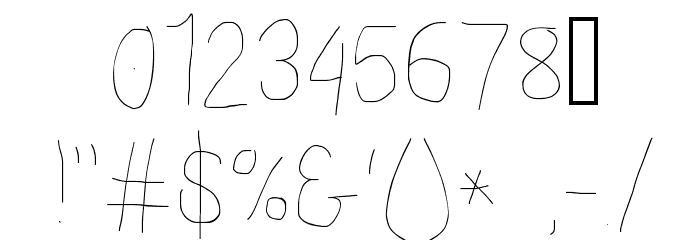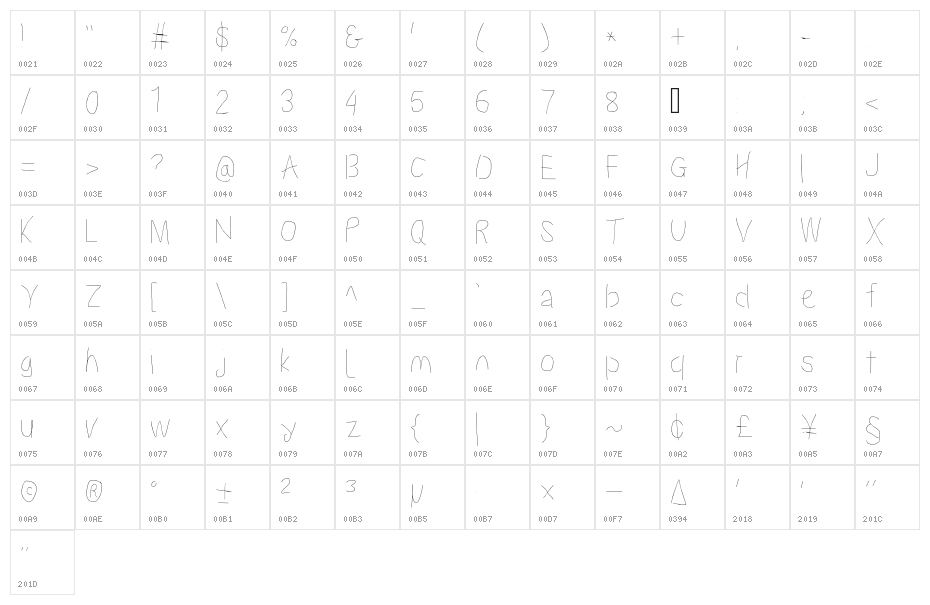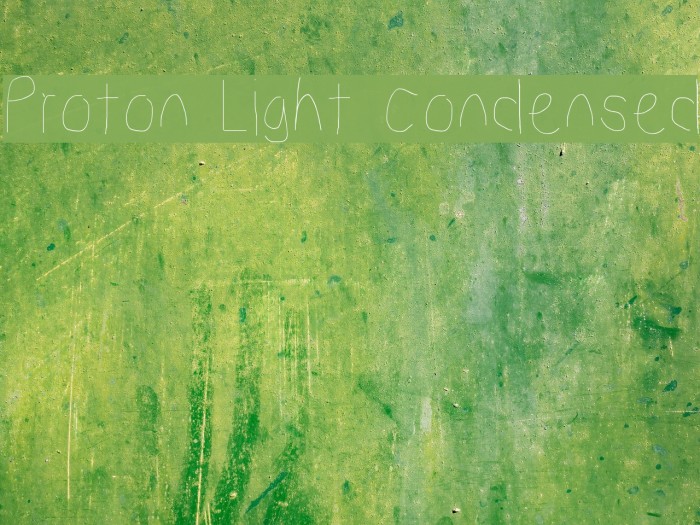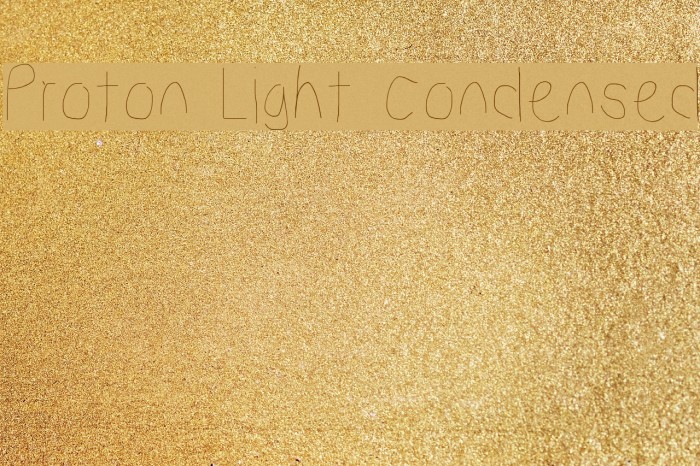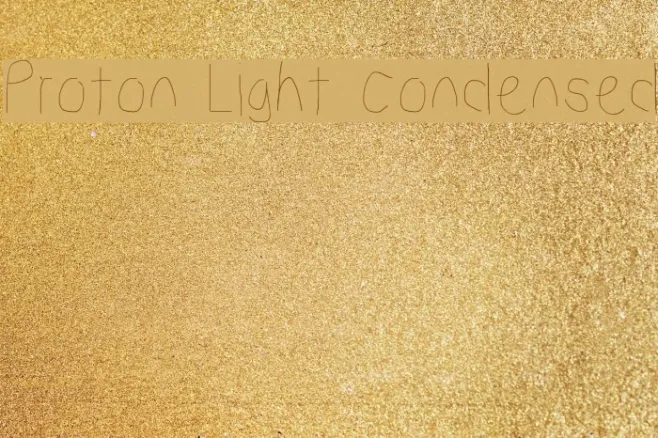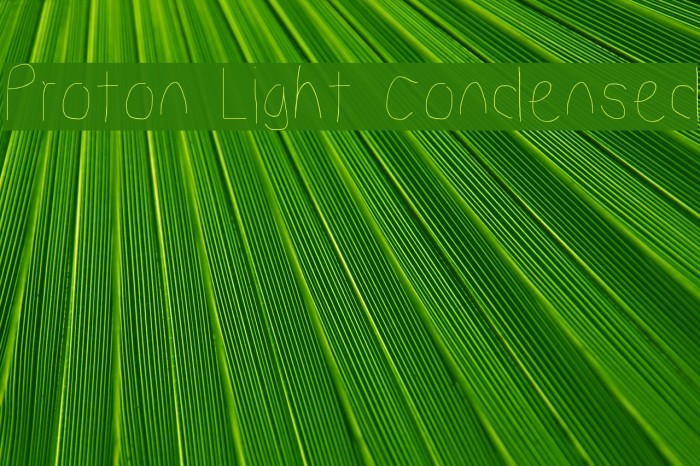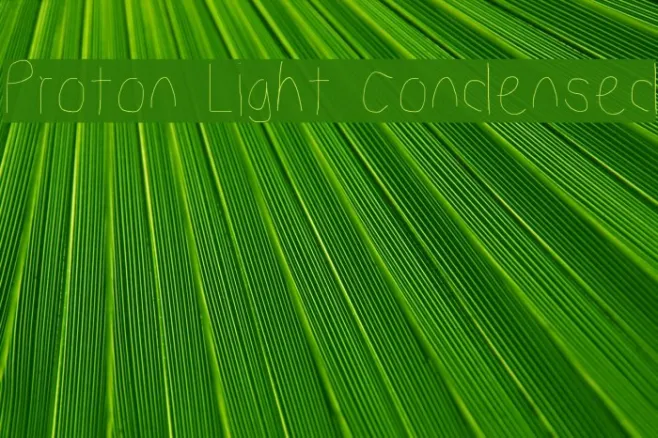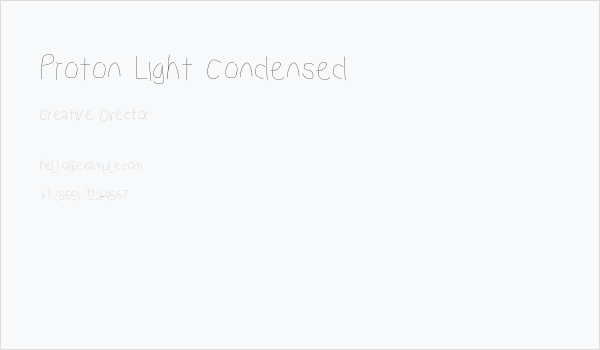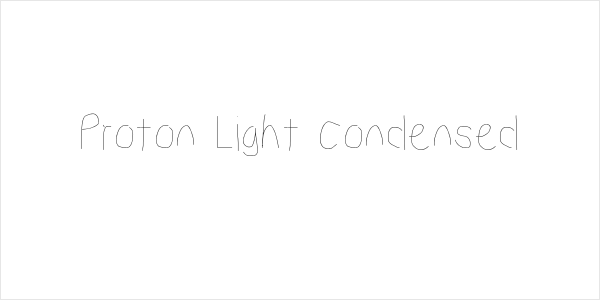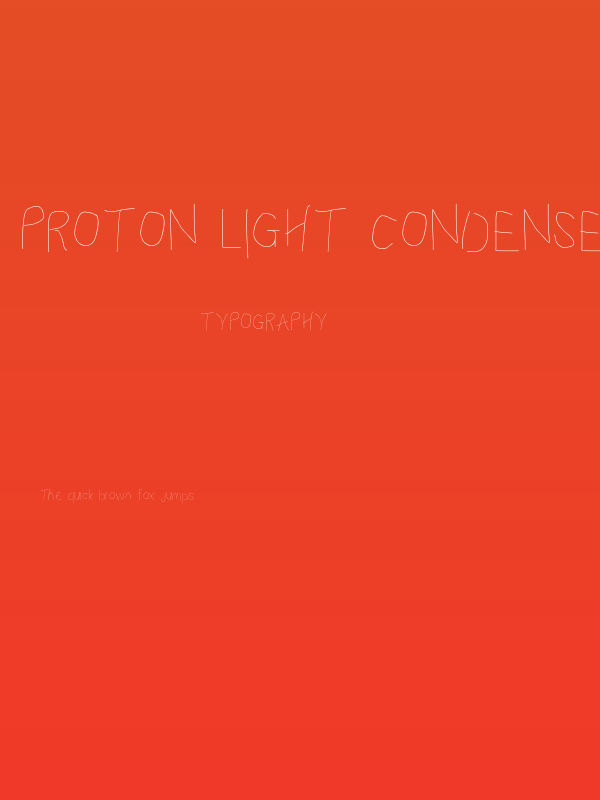
Proton Light Condensed Font
Proton Light Condensed Description
This font features a light, airy design with a condensed structure, giving it a modern and minimalist appearance. The characters are crafted with thin strokes, providing a delicate and refined look. The uppercase and lowercase letters maintain a consistent style, with a slight slant that adds a touch of elegance. The numerals are clear and straightforward, matching the overall aesthetic. Special characters are included, designed with the same thin lines, ensuring uniformity across the font. The spacing between characters is tight, which complements the condensed nature of the font, making it suitable for compact spaces while maintaining readability.